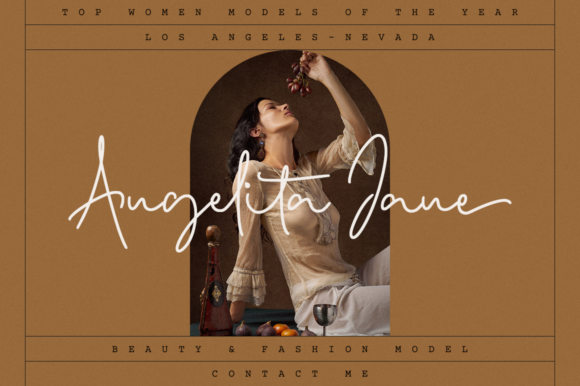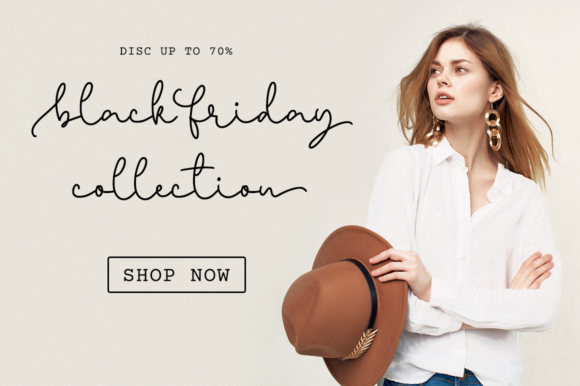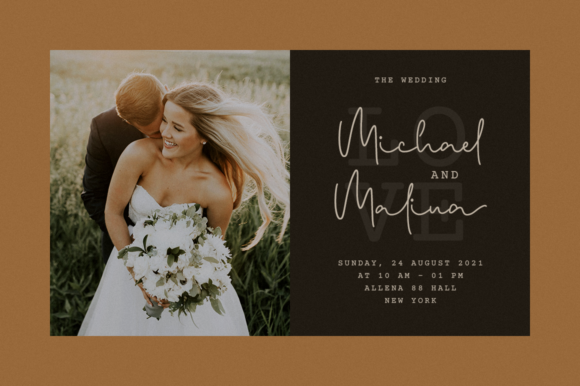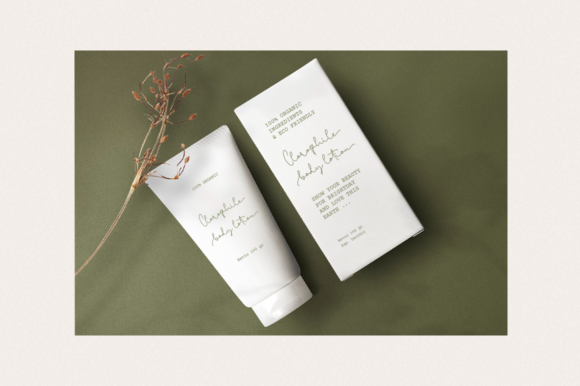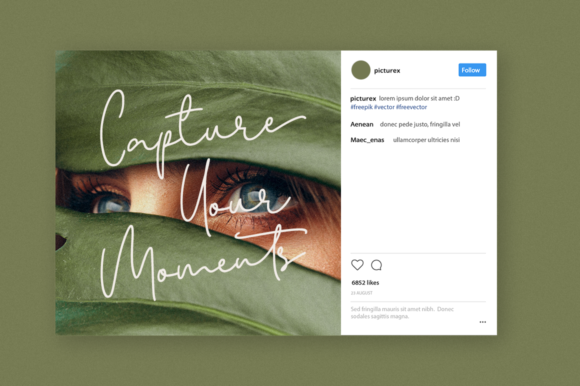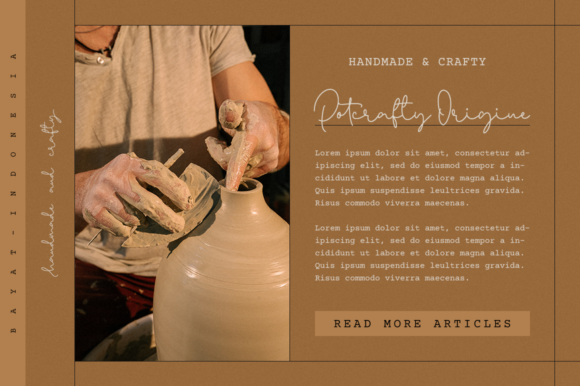
Introduction to Linguista Font
Imagine you’re working on a creative project, pouring your heart and soul into every detail, from the design to the typography. You’re trying to convey a message, evoke emotions, and leave a lasting impression. The right font can make all the difference. That’s where Linguista Font comes in – a beautiful, elegant script that adds a touch of sophistication to any design.
As a designer, you’re always on the lookout for high-quality design resources that can elevate your work. With Linguista Font, you’ll find yourself reaching for it again and again. Its charming, handwritten feel makes it perfect for wedding invitations, thank you cards, quotes, and more. Plus, with its PUA encoding, you can access all the glyphs and swashes you need to create stunning designs with ease.
Key Features of Linguista Font
- High-quality font design with a modern and sleek aesthetic, ideal for creative projects.
- Includes a transparent background, allowing for easy integration with various design elements.
- Designed with a high resolution of 300 DPI, ensuring crisp and clear text rendering.
- Perfect for use in logos, branding materials, and other design resources where a clean and sophisticated font is required.
Honest Review: Linguista Font
I recently stumbled upon the Linguista Font while searching for a free download to enhance my creative project. The first thing I noticed was the high quality of the font, which is a huge plus when it comes to design resources.
- ✨ High quality**: The font is well-designed, making it perfect for any creative project that requires a touch of sophistication.
- ✨ Transparent background**: This feature makes it easy to use the font on any background, giving designers more flexibility.
However, I did encounter a few limitations ⚠️:
- ⚠️ Limited character set**: The font only includes a limited set of characters, which may not be suitable for complex projects.
- ⚠️ No bold or italic options**: While the font looks great in its regular form, it would be nice to have bold and italic options for added versatility.
Overall, I’m impressed with the Linguista Font. While it has some limitations, its high quality and transparent background make it a valuable design resource. With a bit more development, I think it has the potential to become a top-tier font choice for designers.
Linguista Font
Linguista Font is perfect for a variety of creative projects, including graphic design, typography, and branding. Use it to create logos, business cards, brochures, and other marketing materials. The font’s versatility and high-quality features make it an ideal choice for designers and non-designers alike.
The Great Vibes Font is a free download with a transparent background, ideal for creative projects that require a high-quality, elegant font. It is a great alternative to Linguista Font when you need a more formal and sophisticated look.
Compared to Linguista Font, Great Vibes Font has a more classic and refined feel, making it perfect for designs that require a touch of sophistication.
The Alex Brush Font is a high-quality design resource that offers a beautiful, handwritten feel. It is perfect for creative projects that require a unique and personal touch. When to use: for designs that need a handwritten or calligraphic feel, such as wedding invitations or greeting cards.